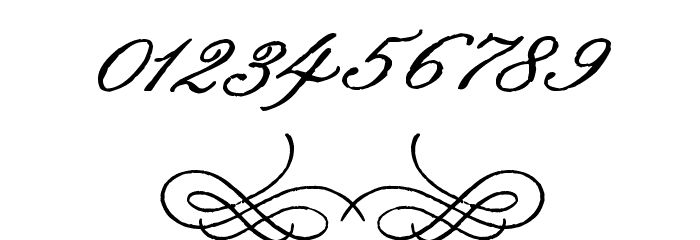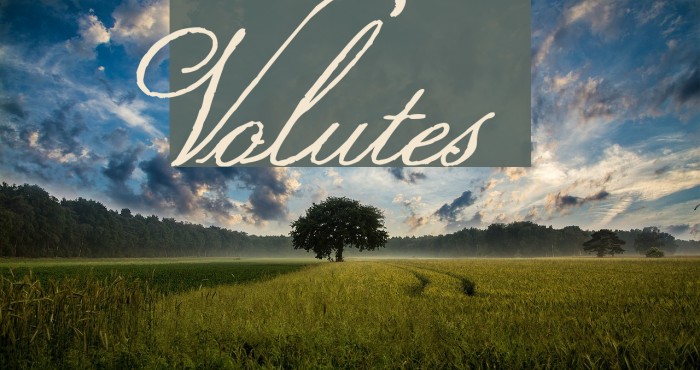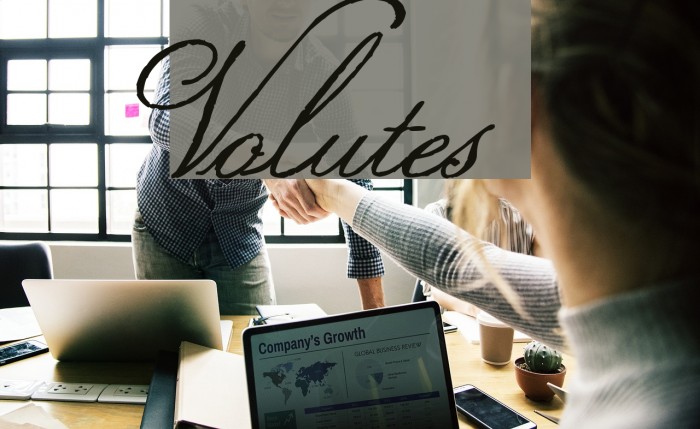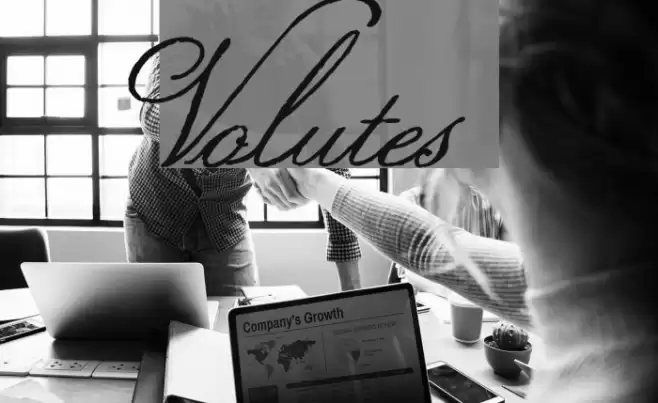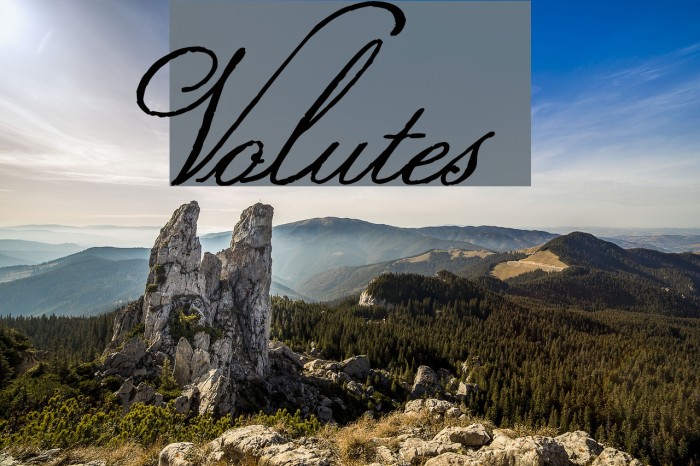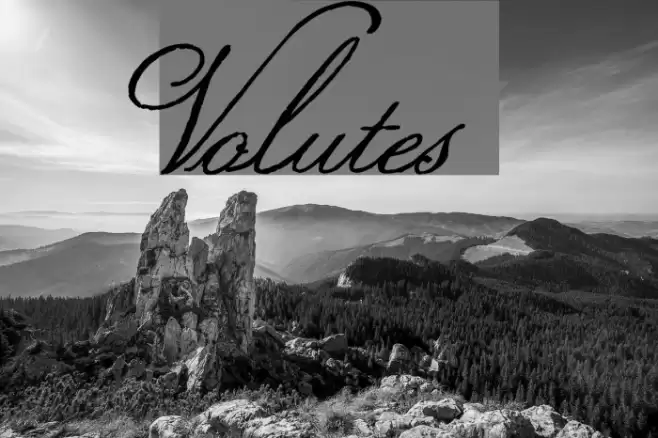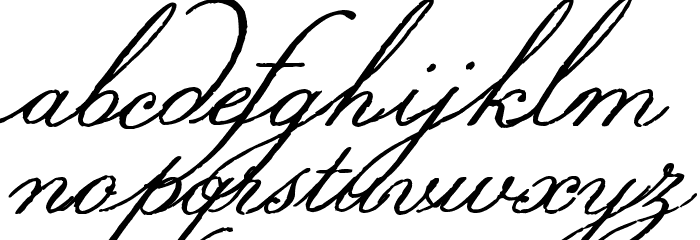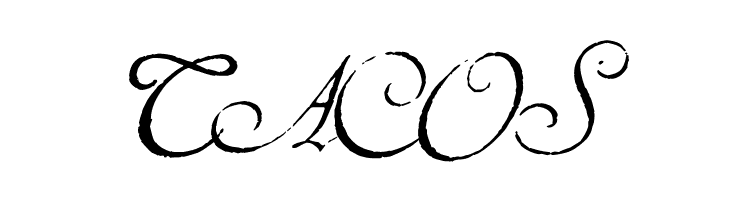
Volutes Font
This elegant script font features intricate, flowing lines that create a sense of sophistication and grace. The uppercase letters are adorned with elaborate swirls and flourishes, giving them a decorative and ornate appearance. The lowercase letters maintain a consistent style, with smooth, connected strokes that enhance readability while retaining the font's artistic flair. The numerals are clear and distinct, matching the overall aesthetic with subtle curves. This font's delicate and refined nature makes it ideal for formal invitations, branding, and any project that requires a touch of elegance.
An elegant script font with intricate swirls and flourishes.
• Proposed Projects: Ideal for wedding invitations, luxury branding, and elegant stationery.
• Category: Script
• Contrast: High
• Overall Style: Decorative
• Use Case: Logos, Invitations, Decorative text